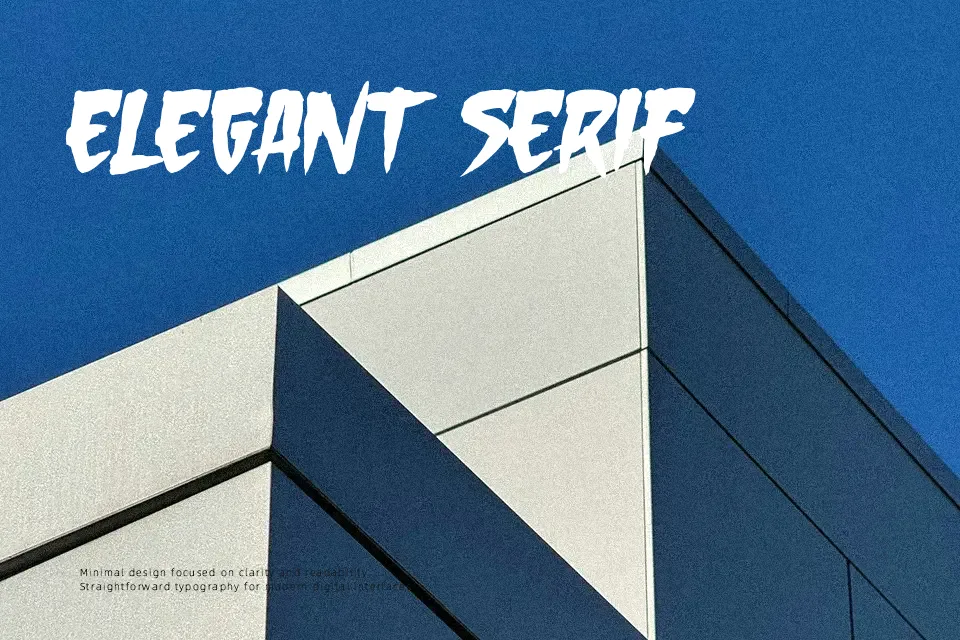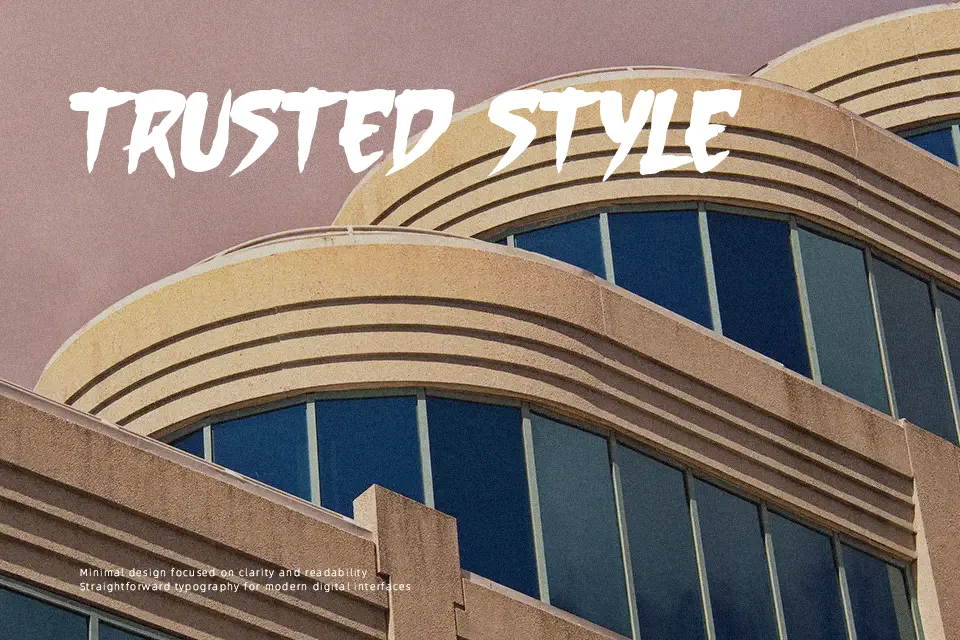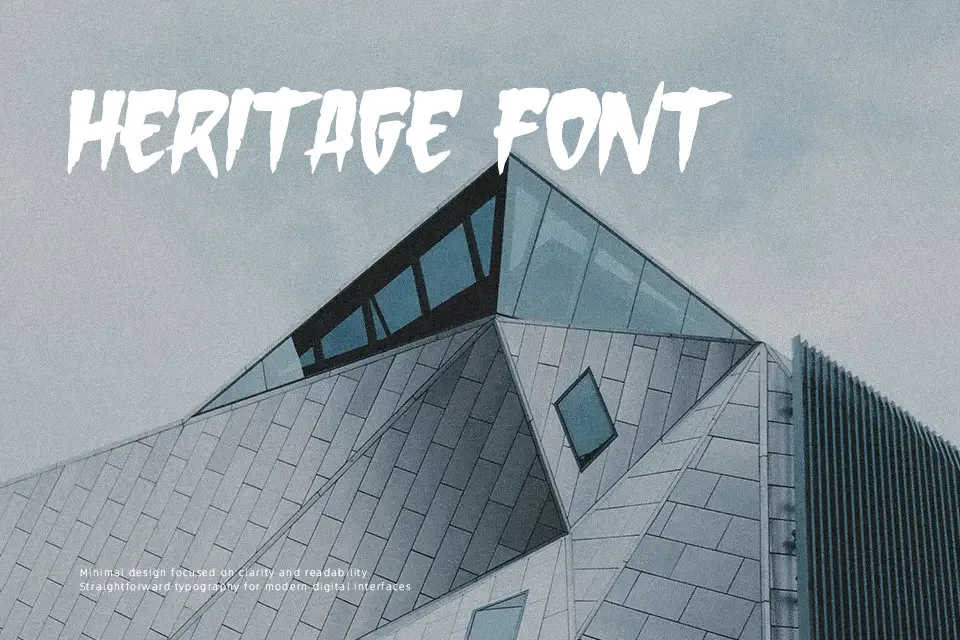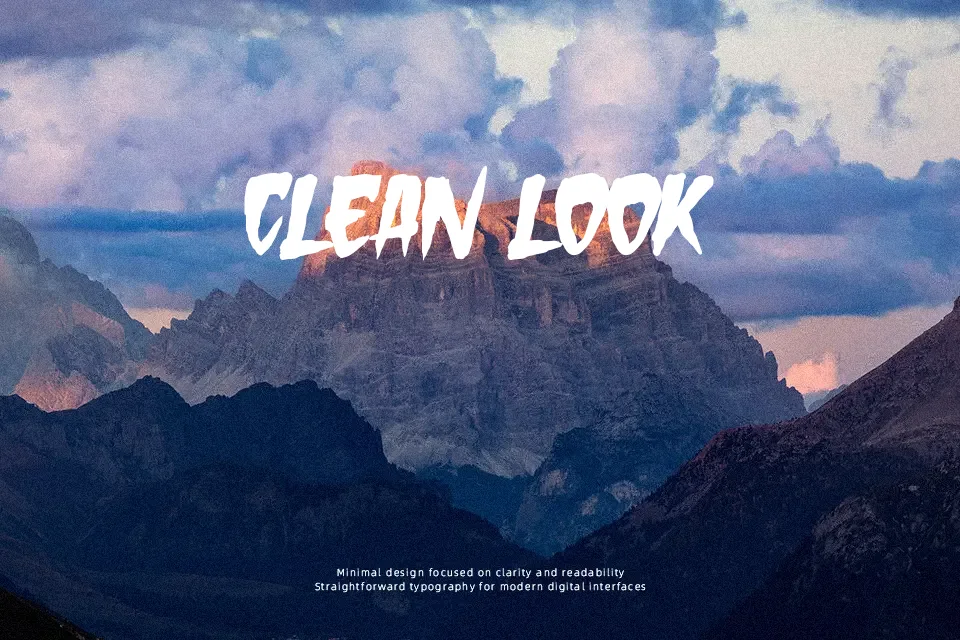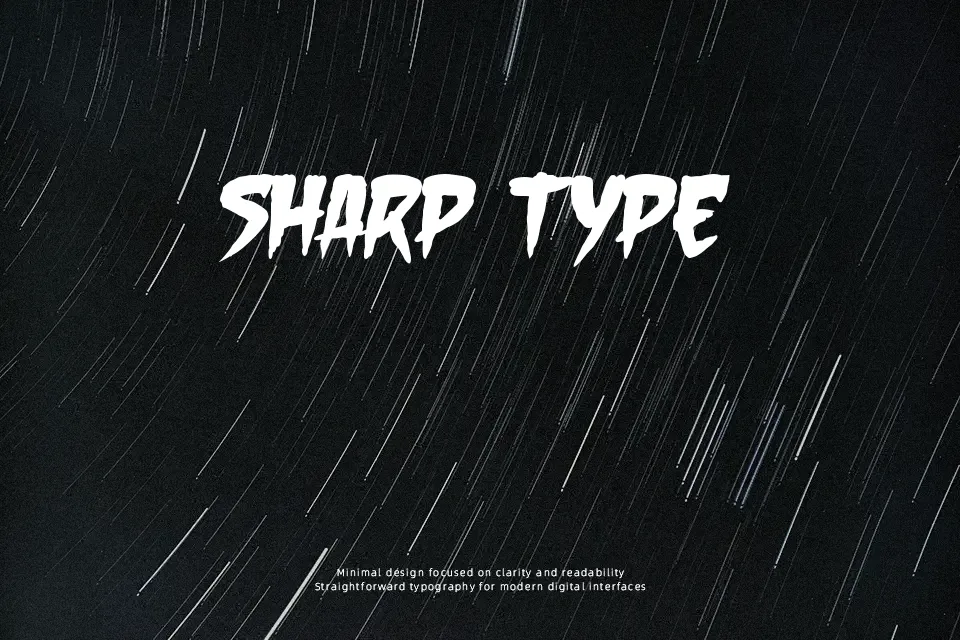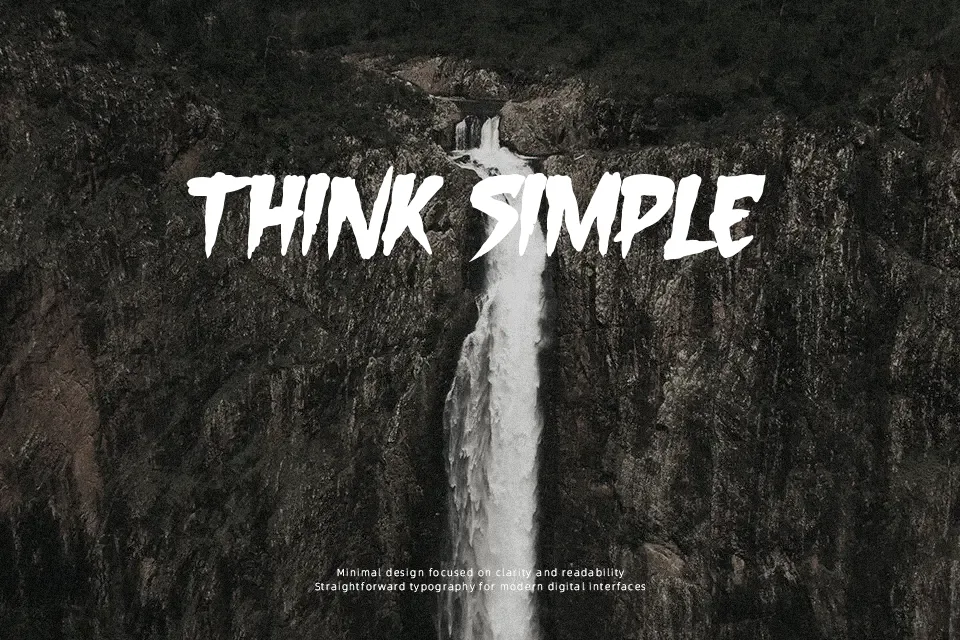
Sleepless Font
Sleepless Font uses rough, hand-drawn brush letterforms with uneven edges, forceful stroke movement, and dramatic proportions. The forms create an intentionally distressed display texture rather than a clean, regular reading rhythm. Its expressive shapes work best when set large, where the brush detail and varied contours remain visible in poster titles, horror-themed artwork, and music graphics. Spacing should be handled carefully in tightly set words, as the irregular outlines can make compact text feel crowded. The typeface has strong visual impact in short phrases, but its decorative texture is less comfortable for small captions or extended reading.
Best For: horror film posters,Halloween event graphics,dark music cover art,dramatic packaging headlines
Perfect for film, halloween, and headline, with a artistic and brush style.